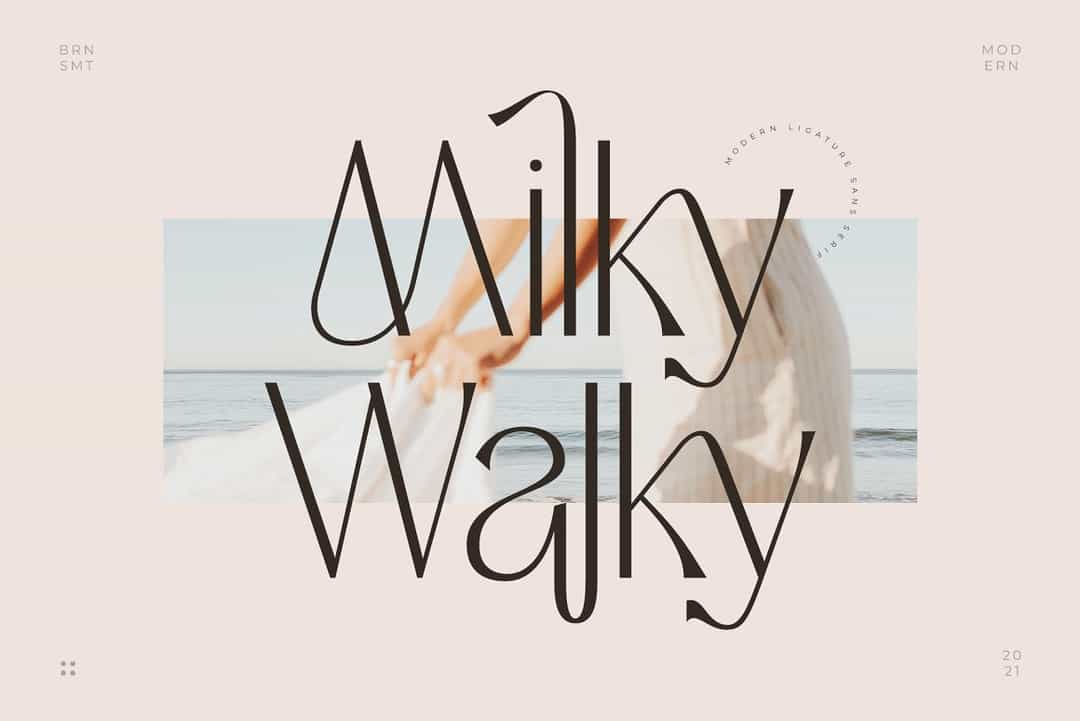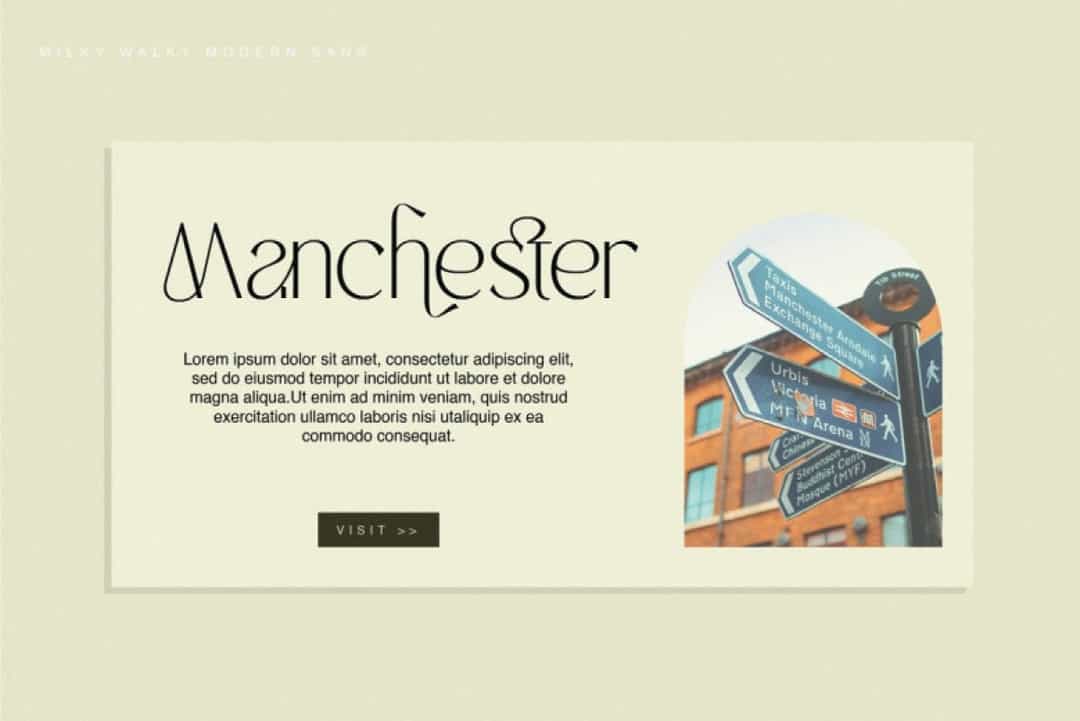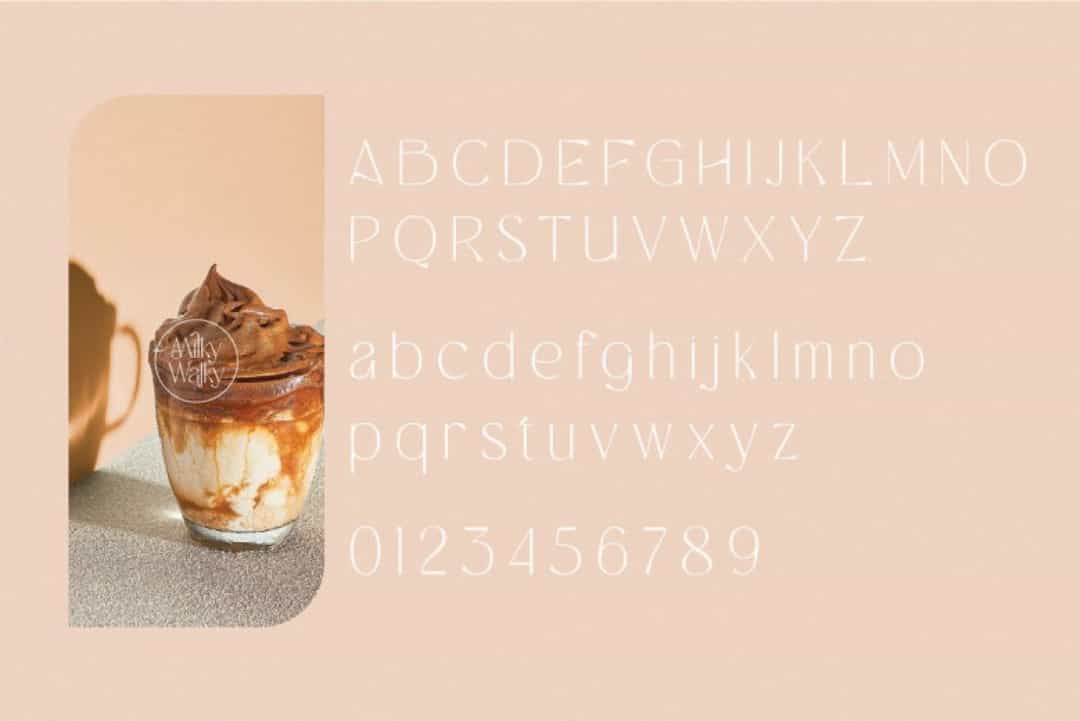
Milky Walky is an eye-catching contemporary sans serif typeface, ideal for logos, magazines and social media projects alike. Already matched and ready to go in your next endeavor!